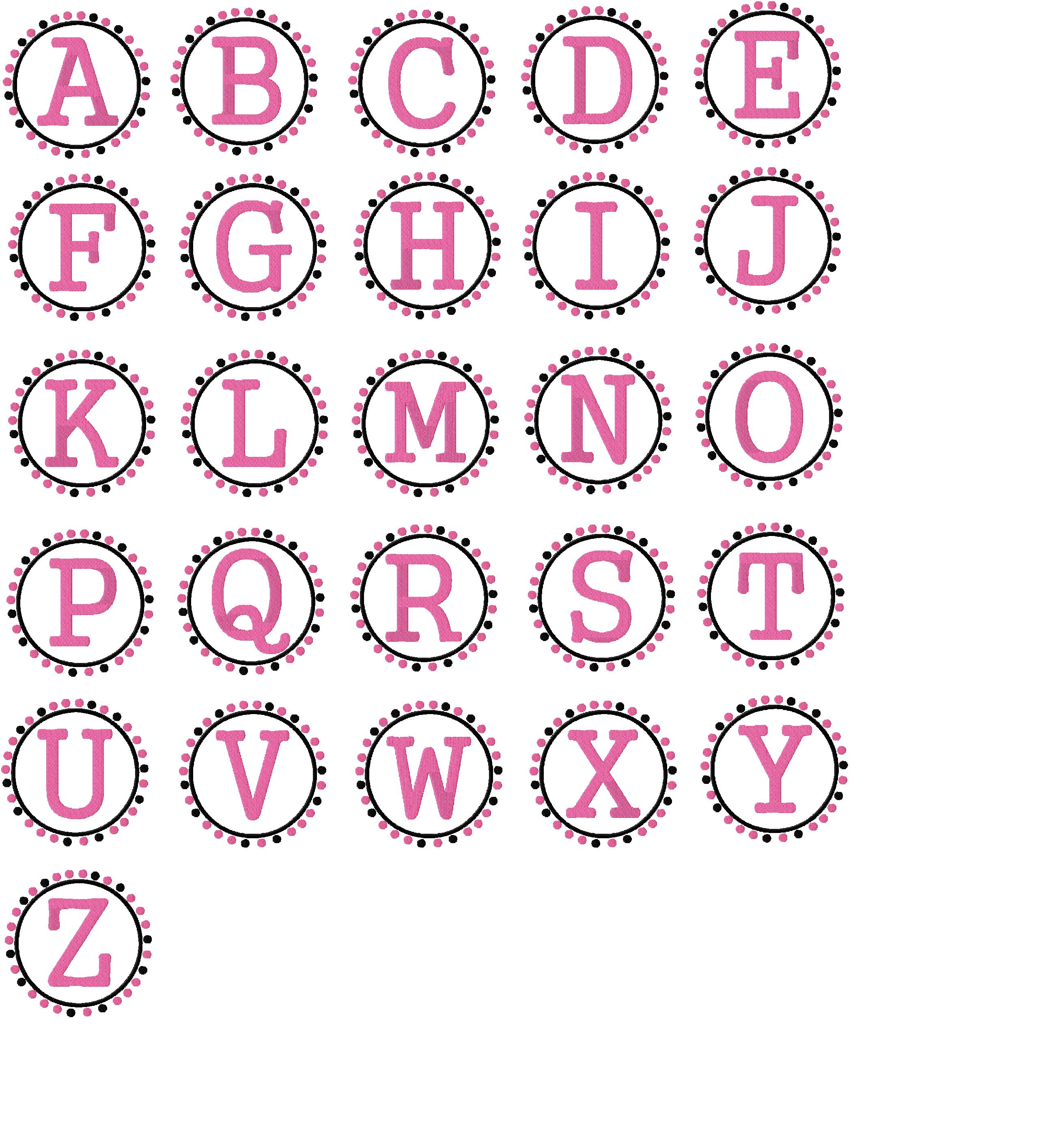
Monogram Embroidery
idery machine font set. Up for free is a set titled Pink and Black Dots. The set includes all 26 capital letters of the alphabet each surrounded in a dot and border pattern. These letters are ideal for monogramming! As a bonus, this pattern also includes a sub font to make a complete monogramming solution! We hope you find this free Monogram Embroidery Font Set to be of exceptional quality. We will soon be launching a submit form to upload your work at FreeEmbroideryDesignFiles.com Please save photos of your designs to share your work. Also, if you like this free design share it on Facebook by clicking the Like button below. We appreciate your support.